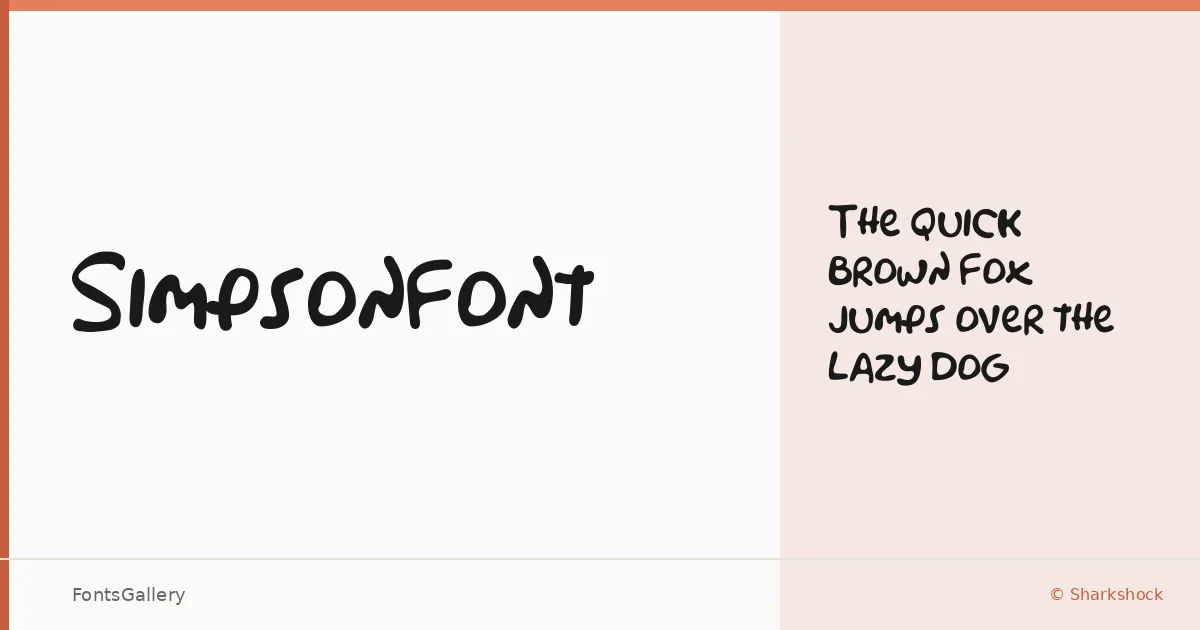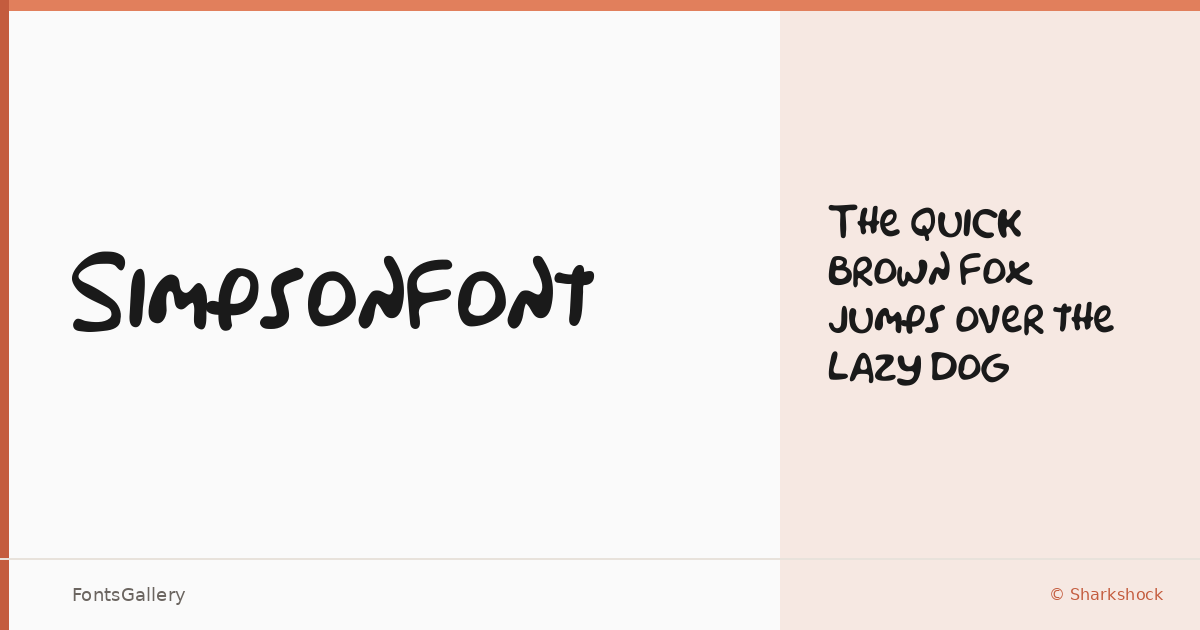
About Simpsonfont Font
There is an unmistakable bounce to this handwritten face — the kind of loose, exaggerated energy that reads as immediately familiar and deliberately fun. Sharkshock brings a bold, playful hand to the letterforms, with shapes that lean into whimsy rather than polish. It ships as a single Regular cut in OTF format, covering both Latin and Cyrillic scripts.
The mood sits firmly in playful and whimsical territory, with strokes that feel drawn rather than constructed. The weight reads as bold even at the Regular setting, giving headlines and short runs of copy a confident, cartoon-inflected presence. That handwritten looseness makes it feel alive on the page without needing any additional decoration to carry the moment.
The face earns its keep on posters, T-shirt graphics, children's book covers, and social media headers — anywhere a display hand needs to grab attention and signal warmth. Its Cyrillic coverage broadens the range of projects it can serve. For contrast in a layout, the named pairings worth reaching for include Canela, Helvetica, ABC Arizona, Etna, and Adobe Caslon Pro, all of which offer structural calm against this face's expressive energy.